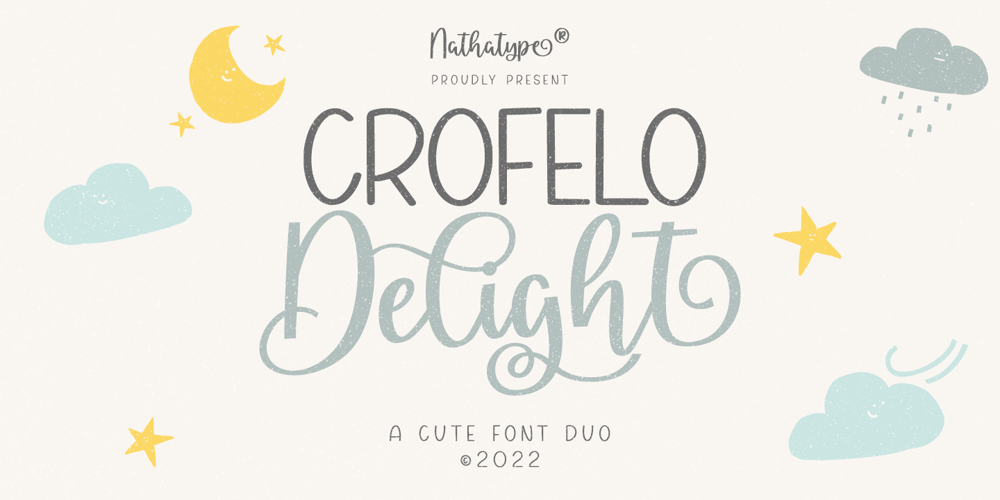
Crofelo Delight Font Family was designed by Donis Miftahudin and published by Nathatype. Crofelo Delight contains 2 styles and family package options. What really suits your design? The answer is here. It’s the ultimate way to be you. Crofello Delight-with the combination between cute script and gorgeous display font style you can mix, match, and call your own. This harmonious font duo supporting and advocating each other to make awesome result in your design.Features: Ligatures Stylistic Sets Swashes Lower and uppercases Numerals and Punctuations It is perfectly used for many design projects, such as poster, logo, book cover, branding, heading, printed product, merchandise, quotes, social media campaign, etc. Get more inspiration about how to use it by seeing the font preview.Thank you for purchasing our fonts. Please don’t hesitate to contact us, if you have any further question or issues. We’re happy to help. Happy Designing.